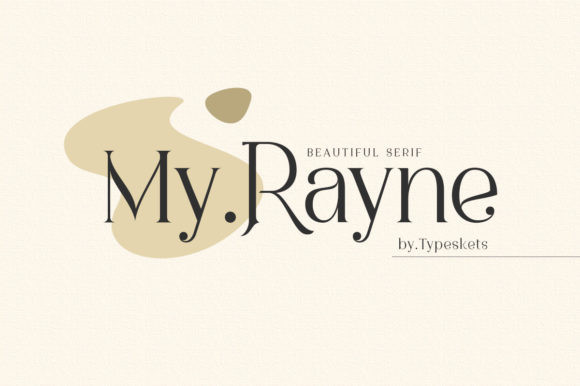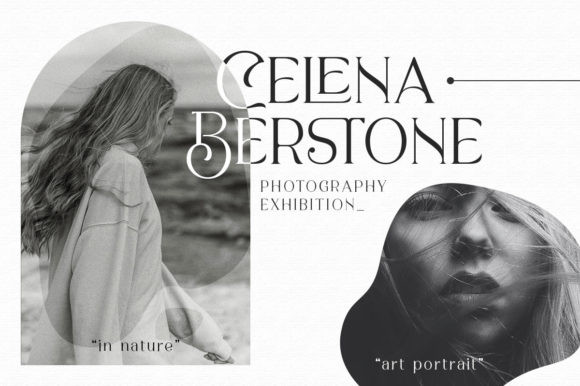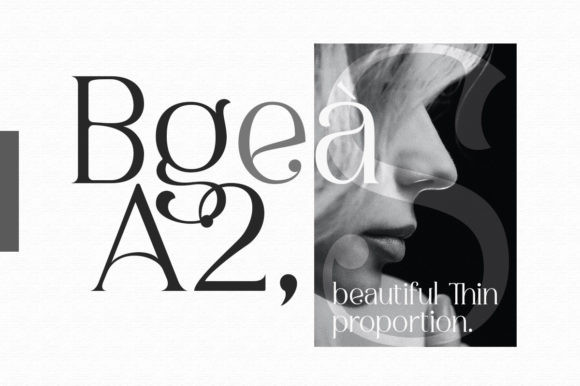
My Rayne Font
My Rayne is an elegant and authentic serif font. It has a luxurious touch and it is the best choice for creating distinct formal designs. Add it confidently to your projects, and you won’t be disappointed.